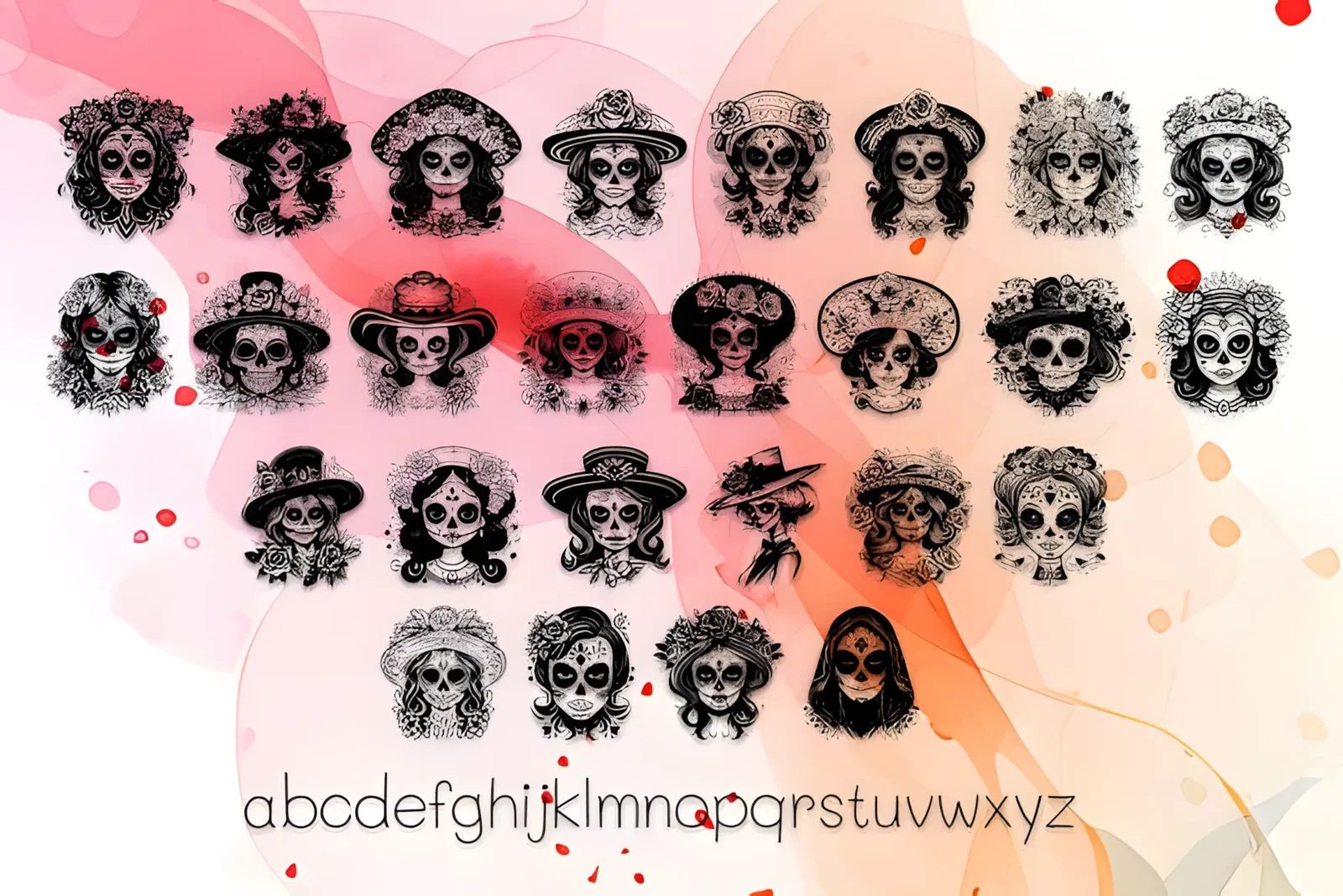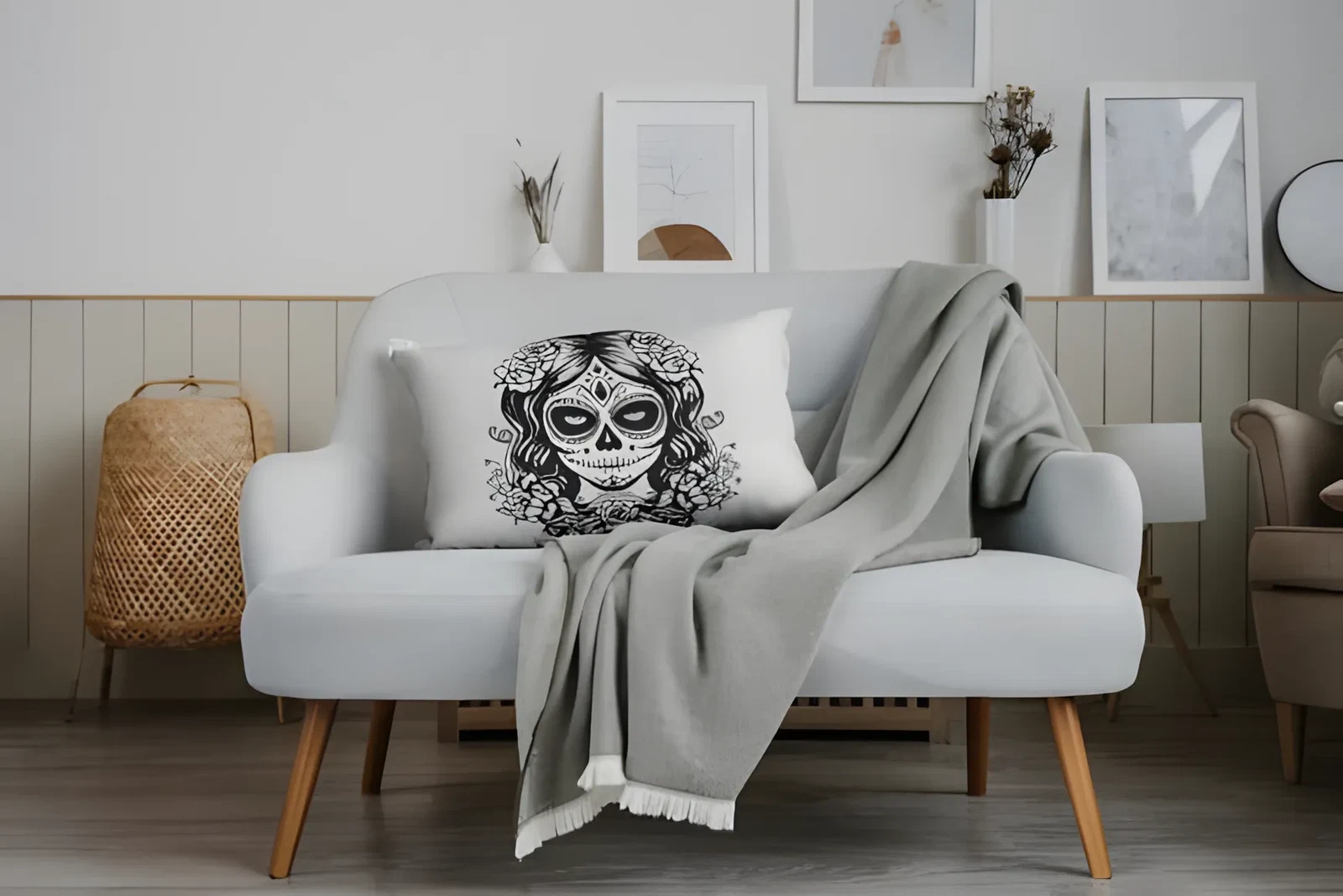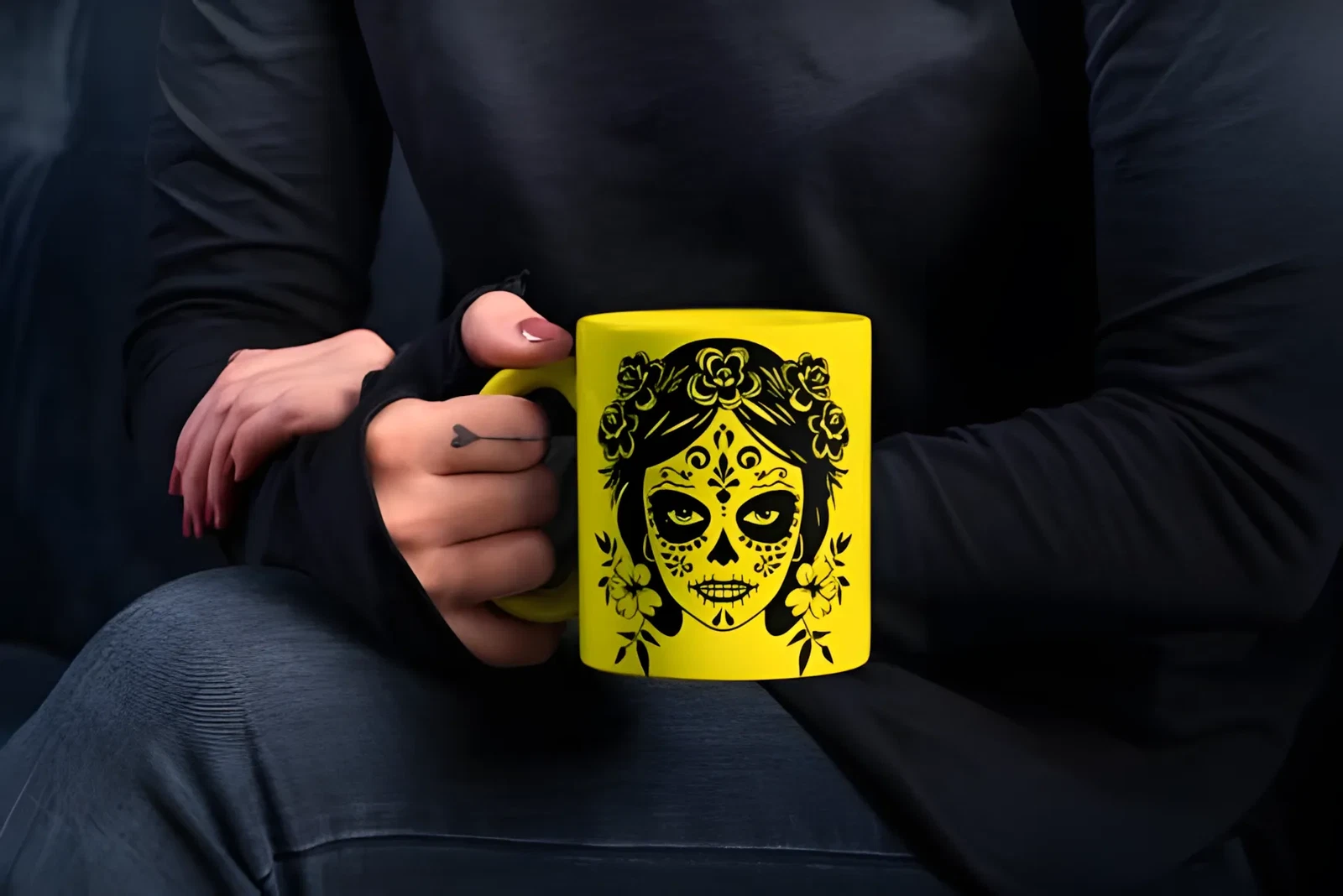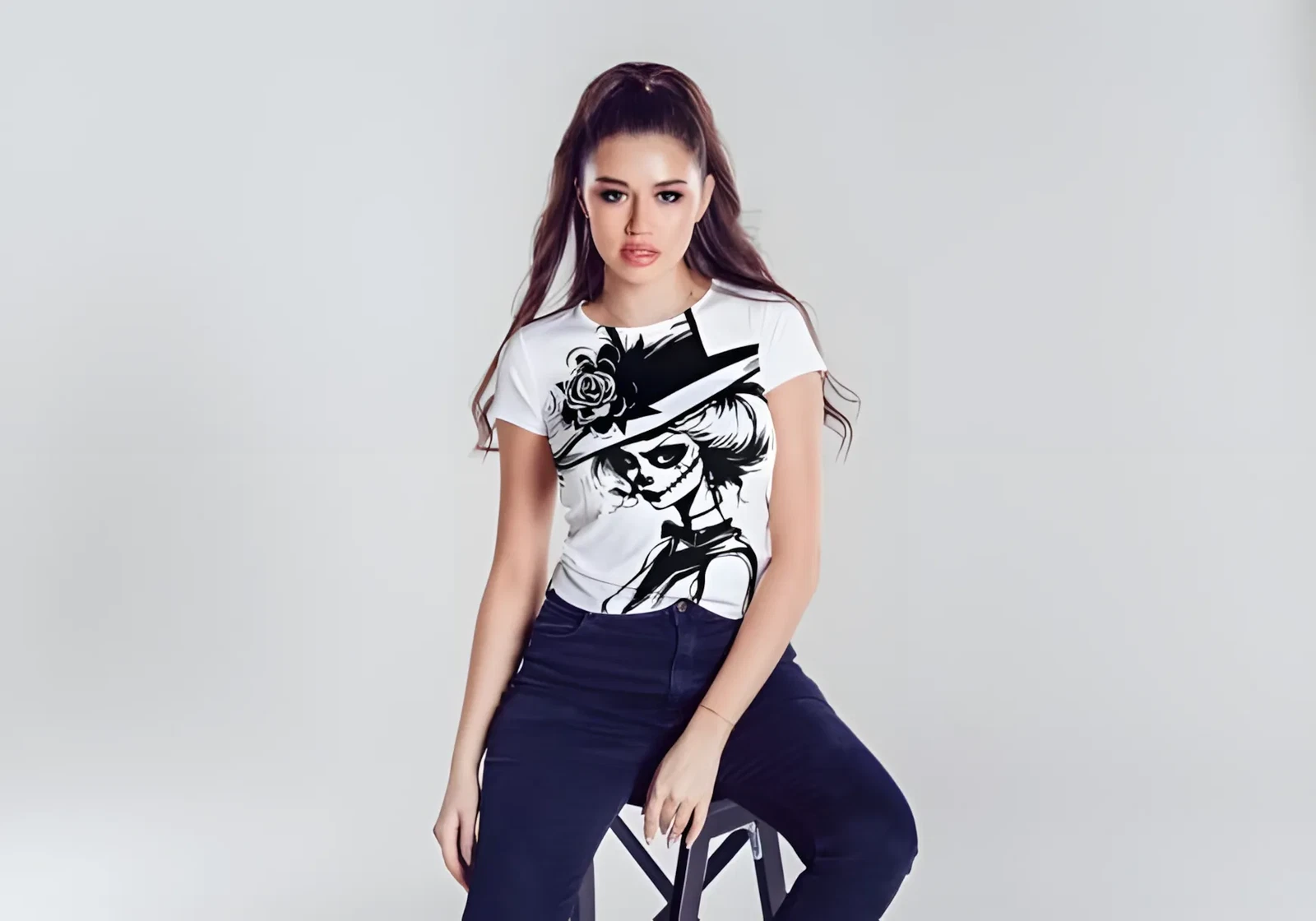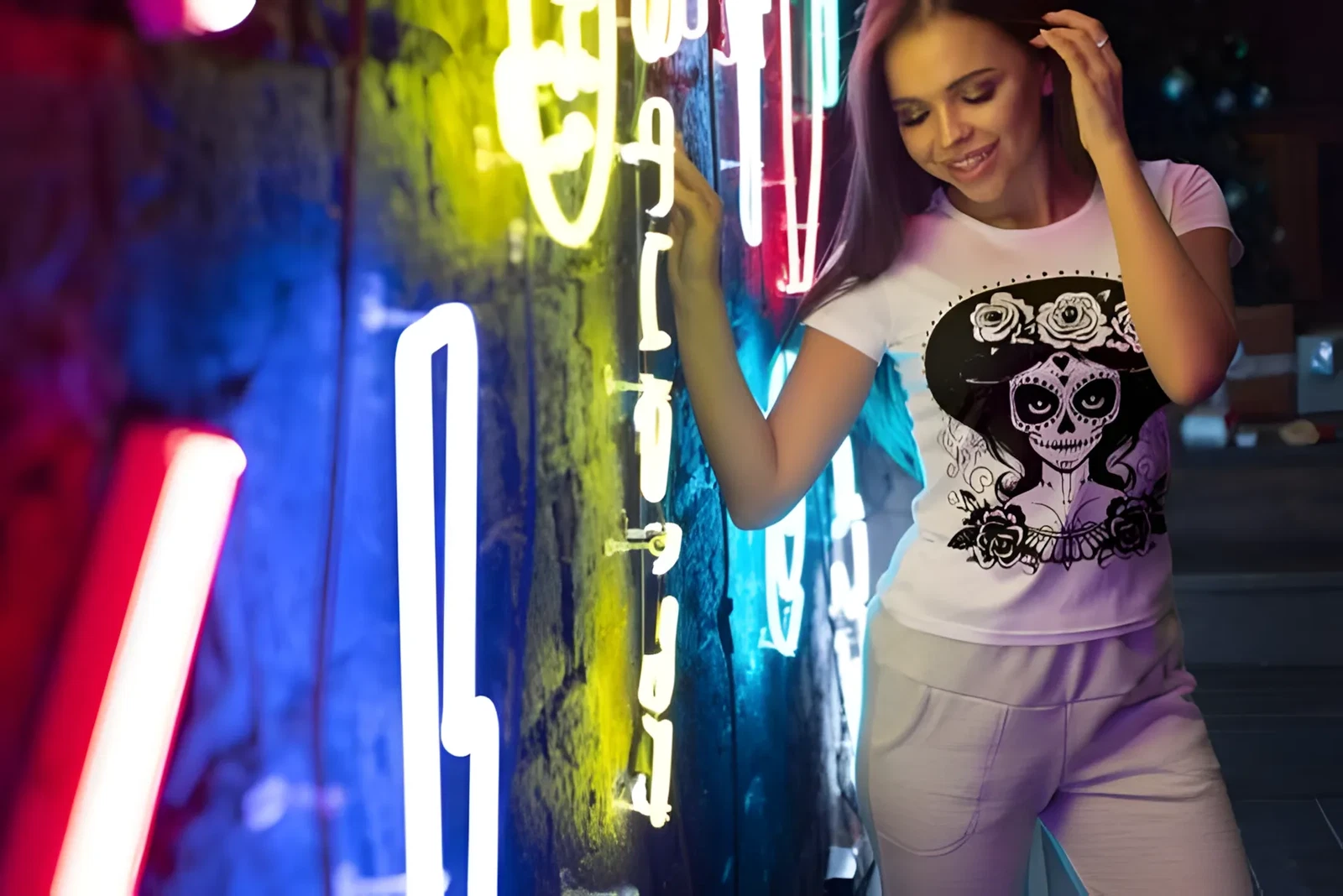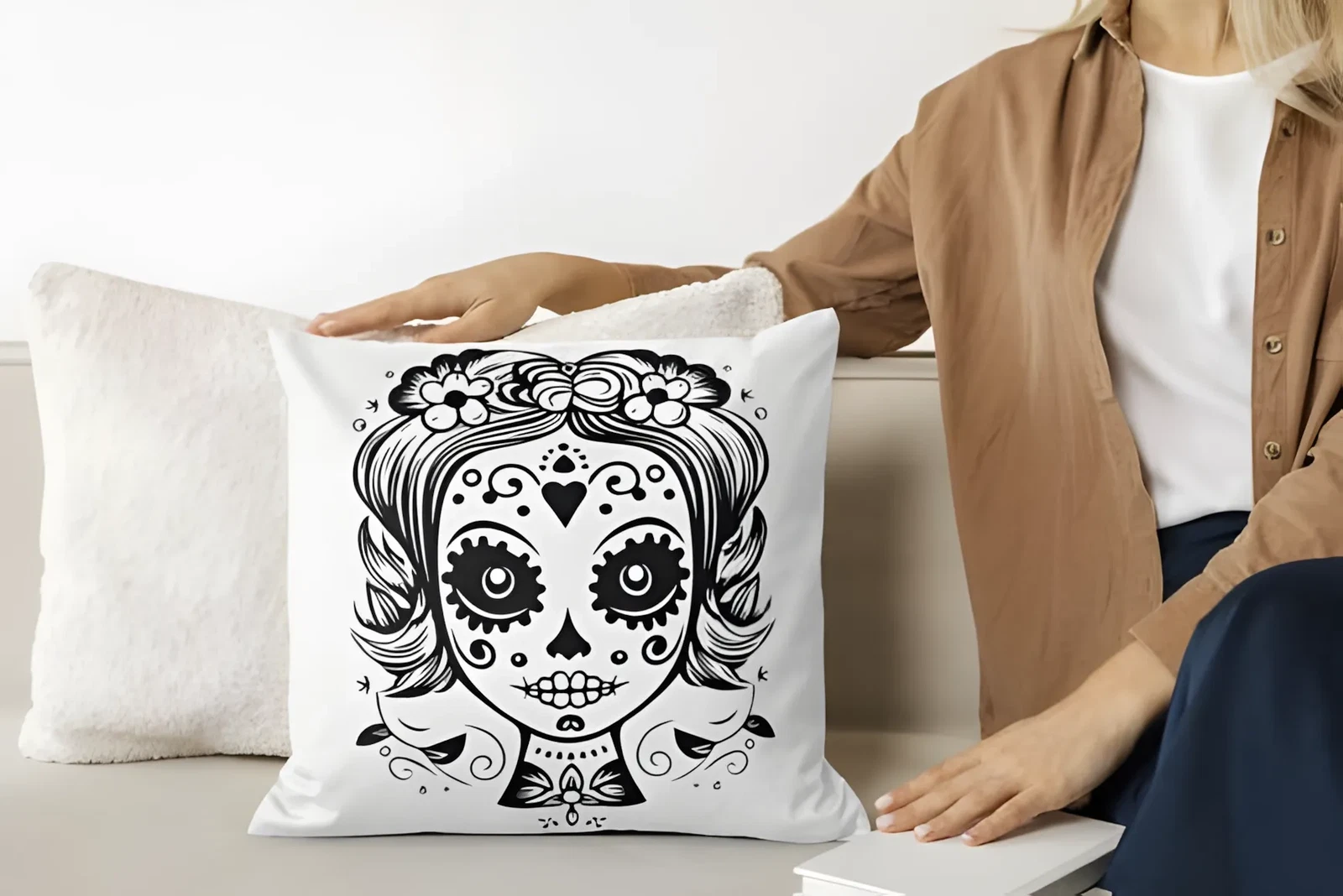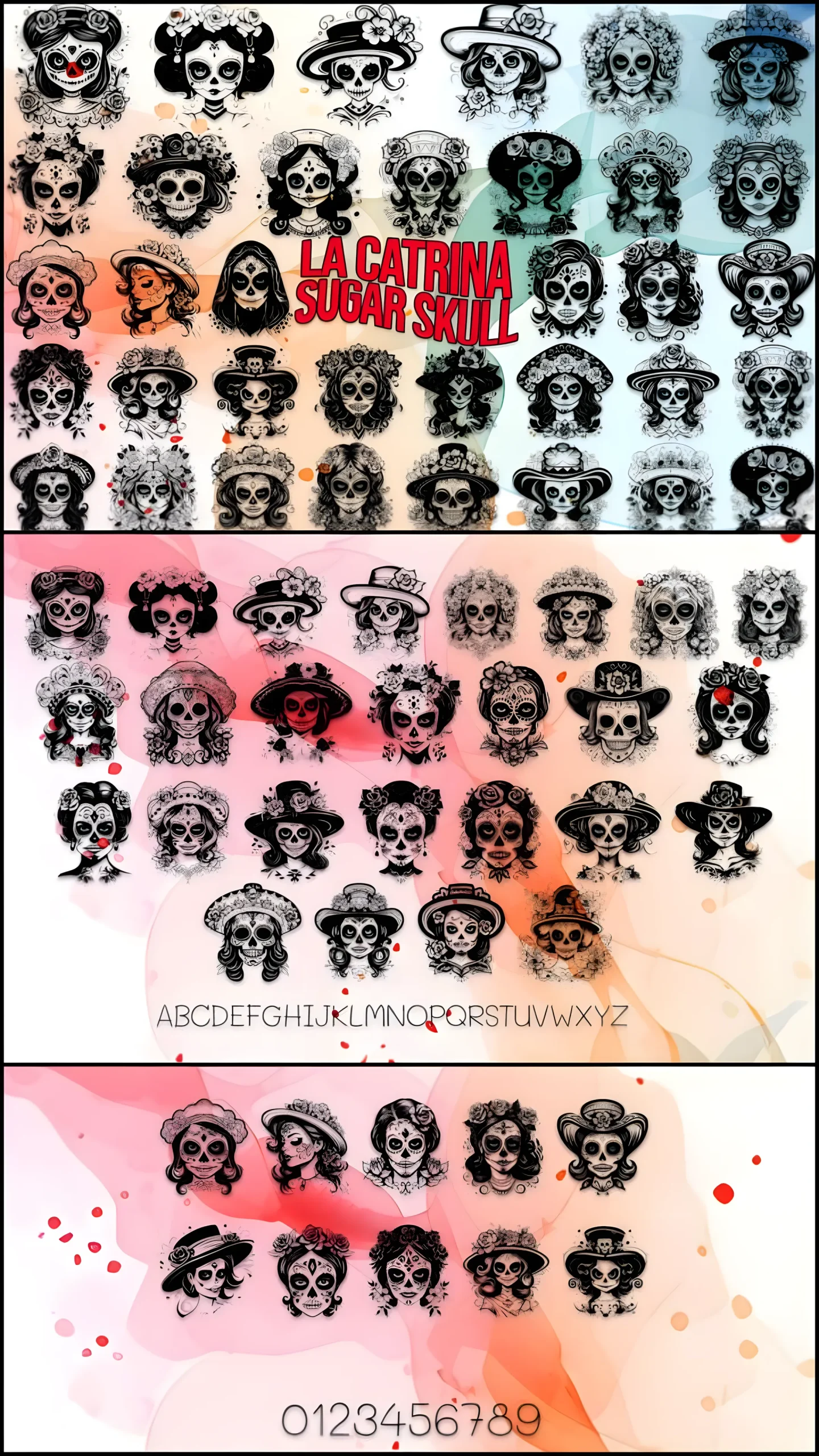
Some fonts exist purely for decoration, while others carry deep cultural meaning. La Catrina Sugar Skull Font belongs to the second category. This is a decorative dingbats typeface inspired by Mexican traditions and the iconic imagery of Día de los Muertos.
Instead of letters, the font uses detailed La Catrina sugar skull illustrations. Each glyph represents a unique skull design, blending cultural symbolism with ornamental illustration. The result is a font that functions more like a visual art set than traditional typography.
Visual Style and First Impression
La Catrina Sugar Skull Font immediately feels rich and expressive. The illustrations are highly detailed, featuring ornamental patterns, floral elements, and classic sugar skull aesthetics. Each skull has its own character, hairstyle, and decorative accents, which makes the set visually diverse while still cohesive.
The artwork is monochrome, allowing the designs to adapt easily to different color palettes and backgrounds. Despite the intricate details, the outlines remain clean and well-defined, which helps maintain clarity at various sizes.
The overall impression is cultural, artistic, and symbolic rather than playful or minimal.
A Dingbats Font Built on Cultural Iconography
This typeface is designed as a dingbats font, meaning it replaces letters with symbolic illustrations. The set includes:
- skull icons mapped to uppercase letters
- decorative skull numbers
- matching punctuation symbols
This structure makes it easy to access and use the illustrations directly from the keyboard. Designers can quickly place skull icons into layouts without importing separate graphic files.
Because all glyphs follow the same visual language, they work well together in compositions and patterns.
Inspired by Día de los Muertos Traditions
La Catrina Sugar Skull Font draws strong inspiration from Día de los Muertos, a Mexican celebration that honors life, memory, and heritage. The La Catrina figure itself is a cultural symbol representing elegance, satire, and remembrance.
This font captures that spirit through:
- ornate skull designs
- folkloric detailing
- traditional decorative motifs
Rather than feeling dark or morbid, the designs feel celebratory and artistic, aligning with the true meaning of the tradition.
Practical Design Applications
Posters, Prints, and Wall Art
One of the strongest uses for La Catrina Sugar Skull Font is decorative print design. The skull illustrations work perfectly as focal points in:
- posters
- art prints
- wall décor
- themed illustrations
Each glyph can stand alone as a complete artwork, making it easy to create striking visuals with minimal layout complexity.
Apparel and Merchandise
The bold, ornamental skull designs translate very well to physical products. The font is suitable for:
- hoodies
- tote bags
- stickers
- t-shirts
Because the illustrations are vector-based, they scale cleanly and maintain detail in printing and cutting workflows.
Cultural and Festival Branding
This font fits naturally into branding related to cultural events, festivals, and themed celebrations. It works well for:
- Día de los Muertos events
- cultural exhibitions
- themed parties
- festival promotions
The skull icons instantly communicate theme and context without the need for explanatory text.
Stickers, Decals, and Craft Projects
La Catrina Sugar Skull Font is compatible with Cricut, Silhouette, and other cutting machines. This makes it ideal for:
- vinyl decals
- stickers
- craft projects
- custom decorations
The clean outlines ensure accurate cuts even with detailed designs.
Readability and Usage Notes
As a dingbats font, La Catrina Sugar Skull Font is not meant for typing words or sentences. It is designed to be used as:
- decorative icons
- illustrative elements
- symbolic visuals
Each glyph should be treated like an illustration. Spacing and placement are important to allow the details to remain visible and balanced within a design.
Emotional Tone and Design Feel
The emotional tone of La Catrina Sugar Skull Font is artistic, respectful, and expressive. It celebrates culture and tradition rather than aiming for shock or novelty.
The font supports designs that feel:
- symbolic
- cultural
- artistic
- meaningful
It is especially effective for projects that want to honor tradition while presenting it in a modern visual format.
La Catrina Sugar Skull Font transforms cultural symbolism into a usable visual toolkit. By turning La Catrina skull imagery into typographic glyphs, it allows designers to work with tradition in a flexible and creative way.
For projects that aim to celebrate Mexican heritage, Día de los Muertos themes, or ornamental skull art, this font offers a powerful and expressive solution. Used thoughtfully, it brings meaning, artistry, and cultural richness into modern design.